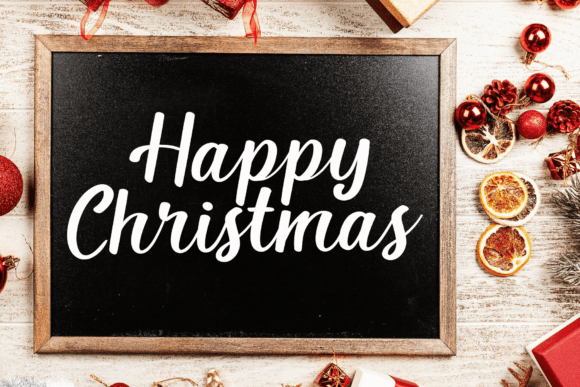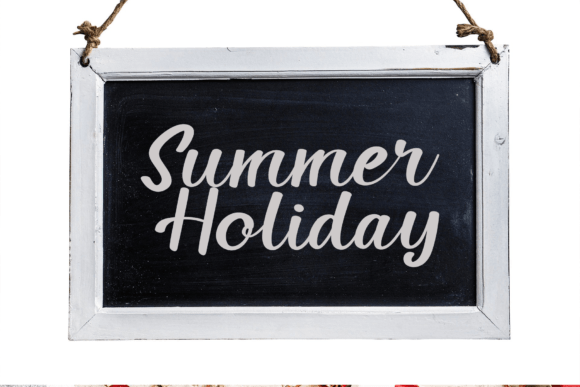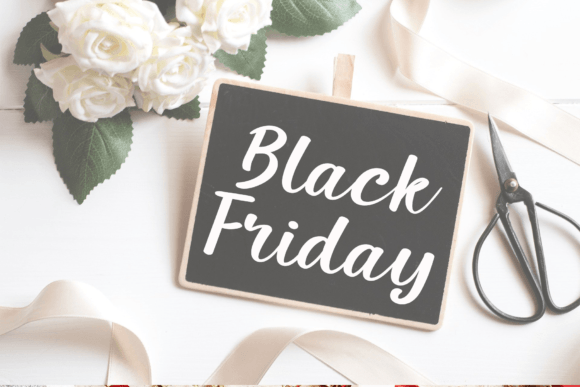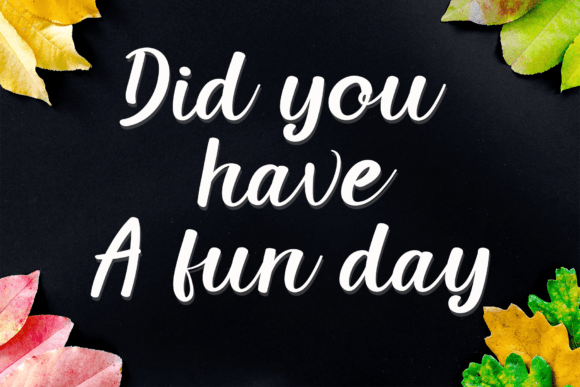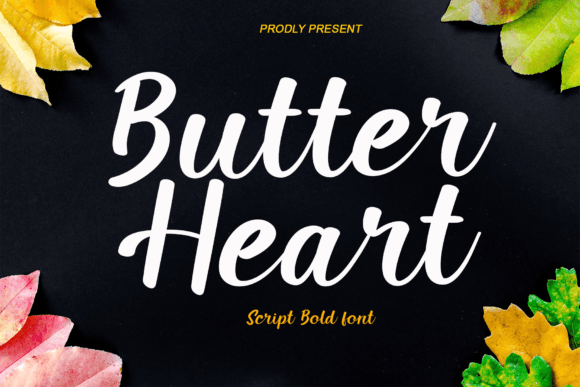
Introducing Butter Heart Font: The Ultimate Luxury Handwritten Font for Your Designs
Are you a designer or crafter looking for a unique and luxurious font to elevate your designs? Look no further than Butter Heart Font! This modern luxury handwritten font is perfect for adding a touch of elegance and sophistication to any design project. In this article, we’ll explore the features and benefits of Butter Heart Font, and show you how to make the most of this stunning font in your designs.
What is Butter Heart Font?
Butter Heart Font is a modern luxury handwritten font that is designed to make your designs stand out. With its elegant and cursive strokes, this font is perfect for creating beautiful and eye-catching designs. Whether you’re working on a logo, blog header, poster, or invitation, Butter Heart Font is the perfect choice.
Key Features of Butter Heart Font
• Modern and Luxurious Design: Butter Heart Font features a modern and luxurious design that is perfect for high-end designs.
• Handwritten Style: This font features a handwritten style that adds a personal touch to your designs.
• Highly Versatile: Butter Heart Font can be used for a wide range of design projects, from logos and blog headers to posters and invitations.
• Elegant and Cursive Strokes: The font features elegant and cursive strokes that add a touch of sophistication to your designs.
Benefits of Using Butter Heart Font
So, why should you choose Butter Heart Font for your designs? Here are just a few benefits of using this amazing font:
• Captivating Designs: With Butter Heart Font, you can create captivating designs that grab attention and leave a lasting impression.
• Professional Look: This font gives your designs a professional look that is perfect for businesses and brands.
• Easy to Read: Despite its elegant and cursive strokes, Butter Heart Font is easy to read and understand.
• Unique and Distinctive: This font is unique and distinctive, making it perfect for designers and crafters who want to stand out from the crowd.
How to Use Butter Heart Font in Your Designs
So, how can you use Butter Heart Font in your designs? Here are a few ideas to get you started:
• Quotes and Inspirational Messages: Use Butter Heart Font to create beautiful quotes and inspirational messages that motivate and inspire.
• Logos and Branding: This font is perfect for creating logos and branding materials that make a lasting impression.
• Blog Headers and Posters: Use Butter Heart Font to create eye-catching blog headers and posters that grab attention.
• Invitations and Stationery: This font is perfect for creating beautiful invitations and stationery that add a touch of elegance and sophistication.
Tips and Tricks for Getting the Most Out of Butter Heart Font
Here are a few tips and tricks for getting the most out of Butter Heart Font:
• Experiment with Different Colors: Try out different colors and color combinations to find the perfect look for your design.
• Play with Font Sizes: Experiment with different font sizes to create visual interest and hierarchy in your design.
• Combine with Other Fonts: Try combining Butter Heart Font with other fonts to create a unique and distinctive look.
In conclusion, Butter Heart Font is a modern luxury handwritten font that is perfect for designers and crafters who want to create beautiful and eye-catching designs. With its elegant and cursive strokes, this font is perfect for adding a touch of elegance and sophistication to any design project. Whether you’re working on a logo, blog header, poster, or invitation, Butter Heart Font is the perfect choice. So why wait? Download Butter Heart Font today and start creating stunning designs that capture everyone’s attention!